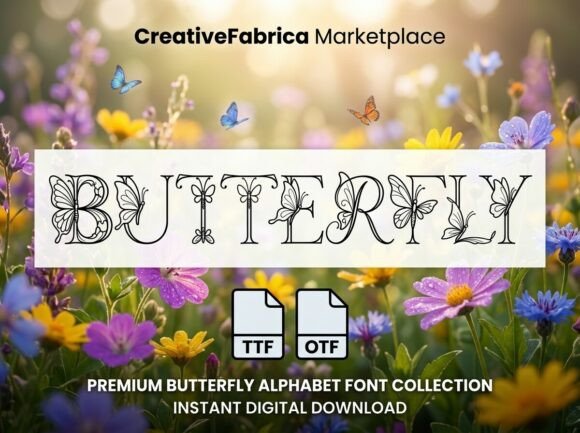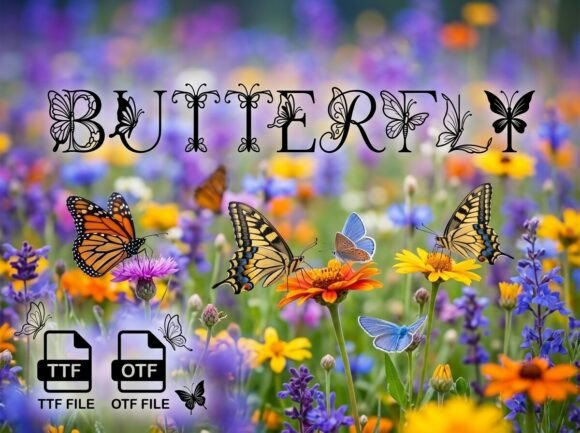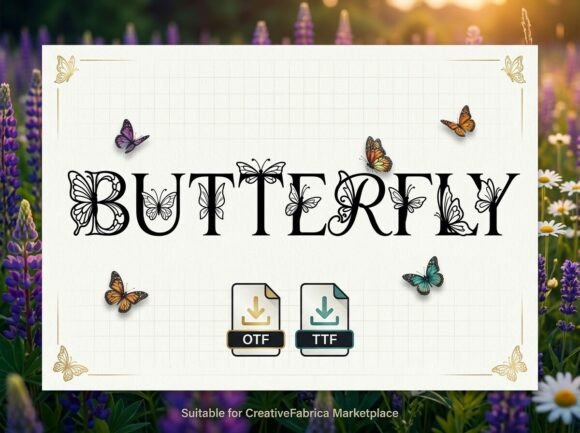
Introducing Butterfly: The Enchanting Decorative Serif Font
Are you a digital crafter or designer looking for a font that can infuse your next creative project with the magical essence of nature? Look no further than Butterfly, a whimsical decorative serif font that is sure to transport your designs to a living fairy-tale garden. In this article, we’ll explore the unique features of Butterfly and how it can elevate your designs to new heights.
A Unique and Hand-Drawn Signature Concept
Butterfly takes its inspiration from classical Roman capital frameworks, but transforms them into a delicate and intricate design that is unlike anything you’ve seen before. The font features a unique, hand-drawn signature concept where delicate, intricately veined butterfly wings bloom directly out of each character stem, counter, and crossbar. This results in a font that is not only beautiful but also highly detailed and intricate.
Perfect Balance of Solid Editorial Tracking and Delicate Illustrative Grace
One of the standout features of Butterfly is its ability to strike a perfect balance between solid editorial tracking and delicate illustrative grace. Every uppercase letter behaves like an individual piece of vector line art, making it perfect for designs where you want to make a statement. Whether you’re creating vinyl sticker graphics, custom t-shirt sublimation prints, or magical fairy-core book cover titles, Butterfly has got you covered.
Optimized for High-Clarity Outlines
Butterfly is perfectly optimized to retain high-clarity outlines across popular design layouts. This means that you can use it with confidence, knowing that your designs will look great whether they’re viewed on a screen or printed out. The font’s high-clarity outlines make it an exceptional choice for a wide range of design applications, from spring festival flyers to botanical nursery wall art decals.
So, what can you create with Butterfly? The possibilities are endless! Here are a few ideas to get you started:
• Vinyl sticker graphics: Add a touch of whimsy to your stickers with Butterfly’s delicate and intricate design.
• Custom t-shirt sublimation prints: Create unique and eye-catching designs for your t-shirts with Butterfly.
• Magical fairy-core book cover titles: Transport your readers to a world of wonder with Butterfly’s enchanting design.
• Spring festival flyers: Celebrate the arrival of spring with Butterfly’s bright and cheerful design.
• Botanical nursery wall art decals: Add a touch of nature to your nursery with Butterfly’s beautiful and intricate design.
• Whimsical boutique product branding: Stand out from the crowd with Butterfly’s unique and eye-catching design.
Why Choose Butterfly?
So, why should you choose Butterfly for your next design project? Here are just a few reasons:
• Unique and eye-catching design: Butterfly’s delicate and intricate design is sure to make your designs stand out.
• High-clarity outlines: Butterfly is optimized for high-clarity outlines, making it perfect for a wide range of design applications.
• Versatile: Butterfly can be used for everything from vinyl sticker graphics to book cover titles.
• Easy to use: Butterfly is a digital font, making it easy to use and incorporate into your designs.
In conclusion, Butterfly is a unique and enchanting decorative serif font that is sure to infuse your designs with the magical essence of nature. With its delicate and intricate design, high-clarity outlines, and versatility, Butterfly is the perfect choice for digital crafters and designers looking to create something truly special. So why wait? Download Butterfly today and start creating your own magical designs!